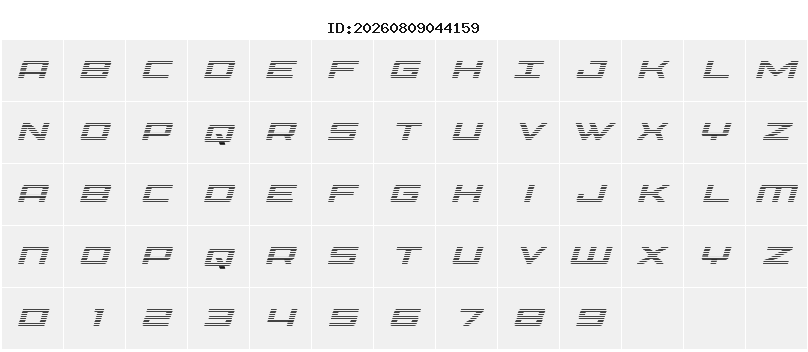
About Phoenicia Gradient Italic.ttf
Phoenicia Gradient Italic.ttf is a modern, elegant sans-serif font designed for ultimate readability and visual harmony. Perfect for branding, headlines, web design, and print materials.